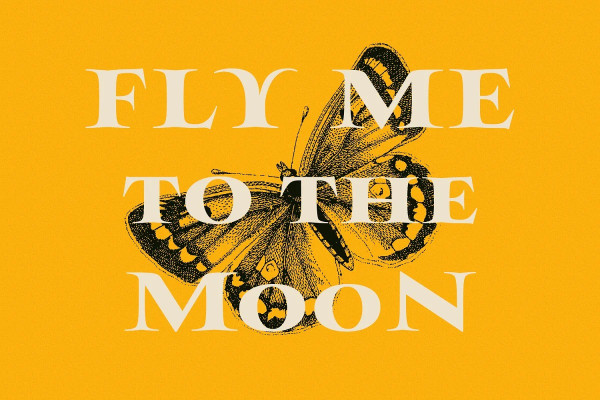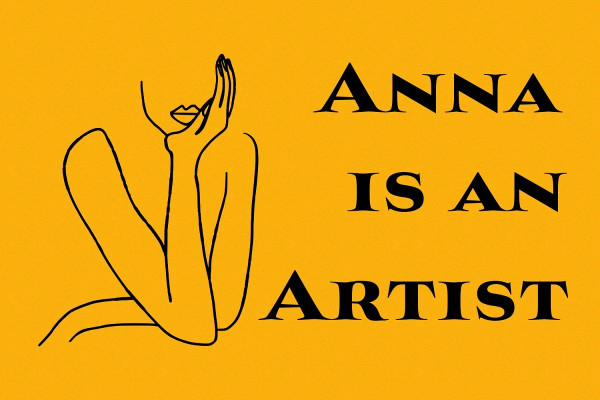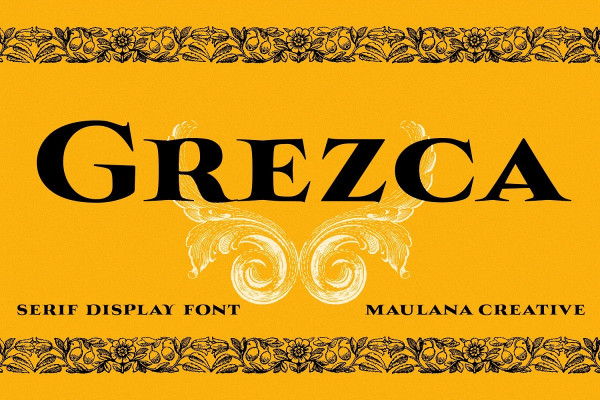
Grezca Font
Grezca Font is a an classic decorative serif display font. Medium stroke, fun character with a bit of ligatures and alternates. To give you an extra creative work. Grezca font support multilingual more than 100+ language. This font is good for logo design, Social media, Movie Titles, Books Titles, a short text even a long text letter and good for your secondary text font with script or serif. Make a stunning work with Grezcafont.